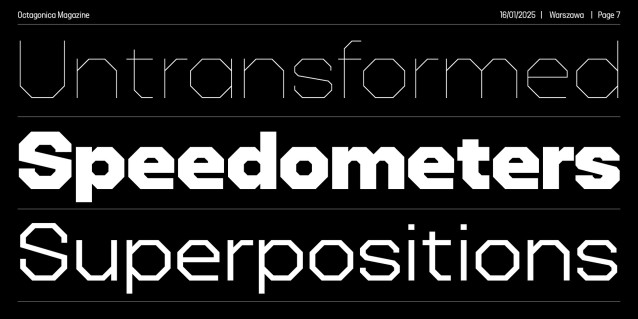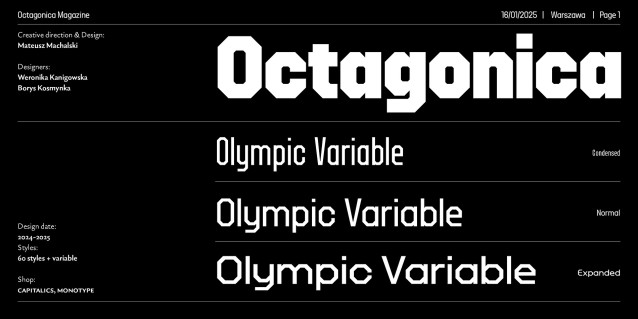
Octagonica Font Family
Octagonica Font Family is a modern typeface inspired by the geometry and aesthetics of 20th century sports posters. It was created for designers looking for a form that is dynamic, compact and expressive – ideal for use in corporate identity, information systems and posters. The design of the letters is based on a rigorous grid, where rhythmic modules dominate. The letters have something of the numbers on jerseys, stadium signs, but also historical affishes advertising sporting events. Thanks to variable font technology, the user can seamlessly control the thickness, width and expression of the letters. From the precise, technical hairline condensed version to the heavy and monumental black expanded, the typeface adapts to the needs of the project. This flexibility makes it not only an aesthetic choice, but also a practical tool. Octagonica combines structure and energy. It is a typeface that speaks loudly but precisely. Created to convey emotion, to act in motion and to have an impact on a large scale – in both physical and digital spaces. Design Team: Mateusz Machalski & Weronika Kanigowska